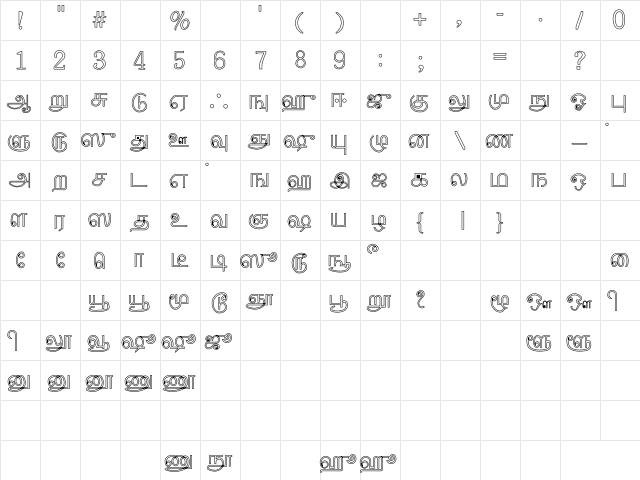
Palladam Hollow Medium
Design Context for Palladam Hollow
Palladam Hollow is a composed and adaptable typeface that performs quietly and consistently across a wide range of design contexts.
Pro Tip: Use Palladam Hollow in both headline and body roles to test its range before committing to a single application.